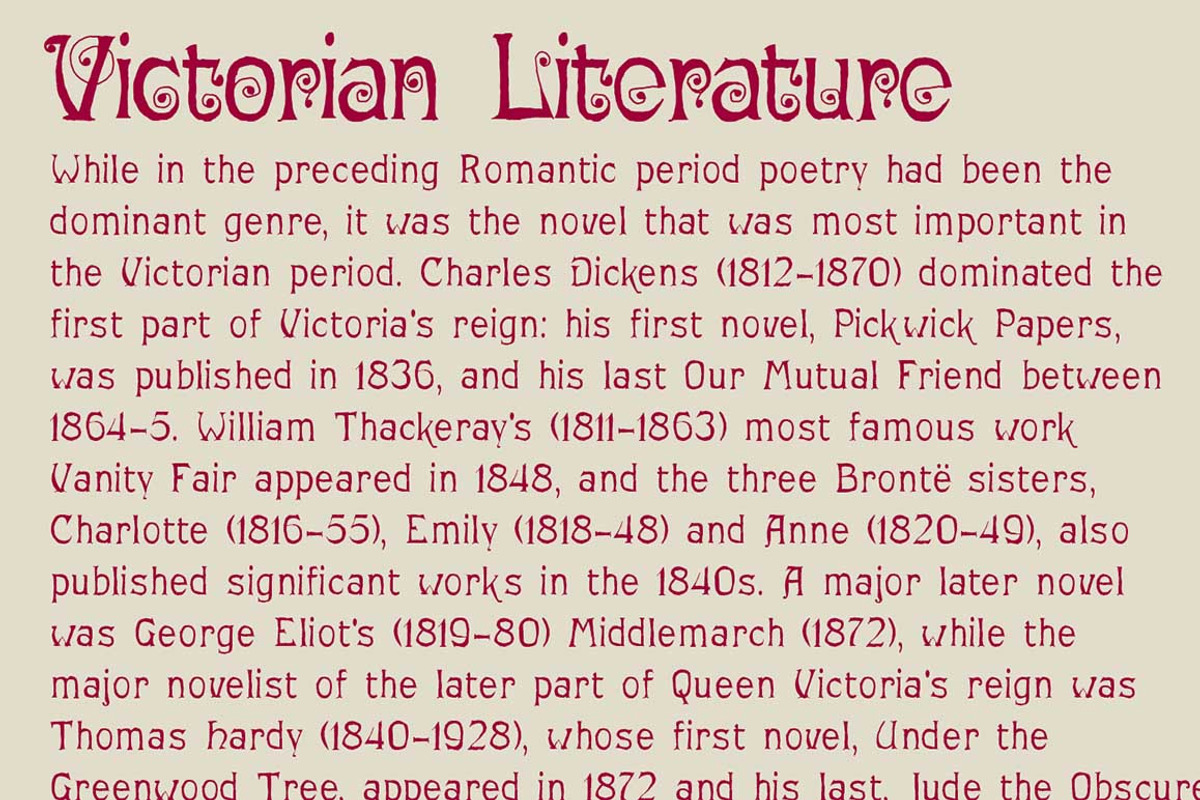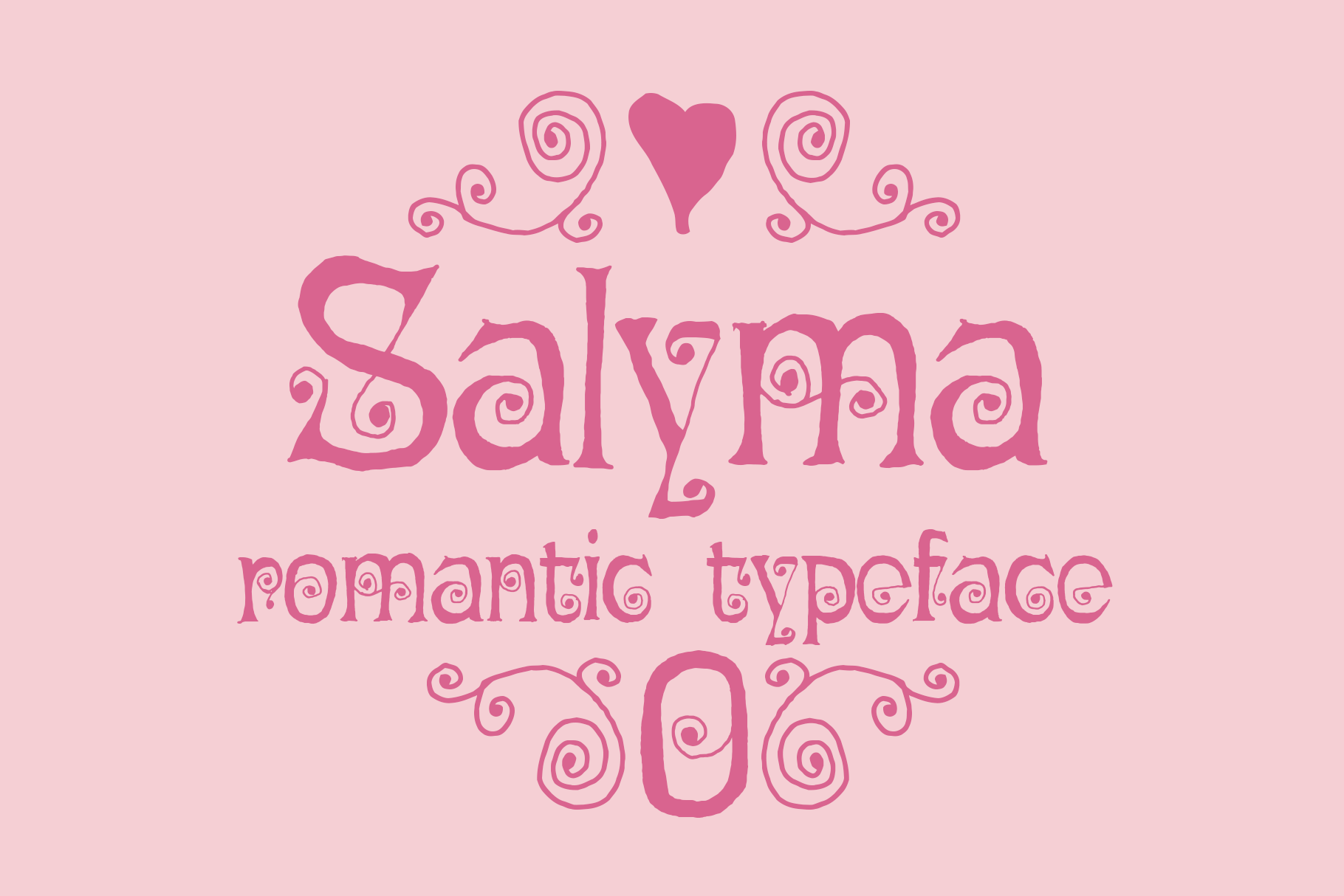
Salyma romantic typeface
Salyma
Neo-Victorian Hand Drawn Font
Salyma is cute and romantic. It has curly Victorian swashes and a modern hand drawn look. You can use curlyless Salyma Plain for short texts or as a visual complement. A set of matching ornaments is included to add flair to your designs.